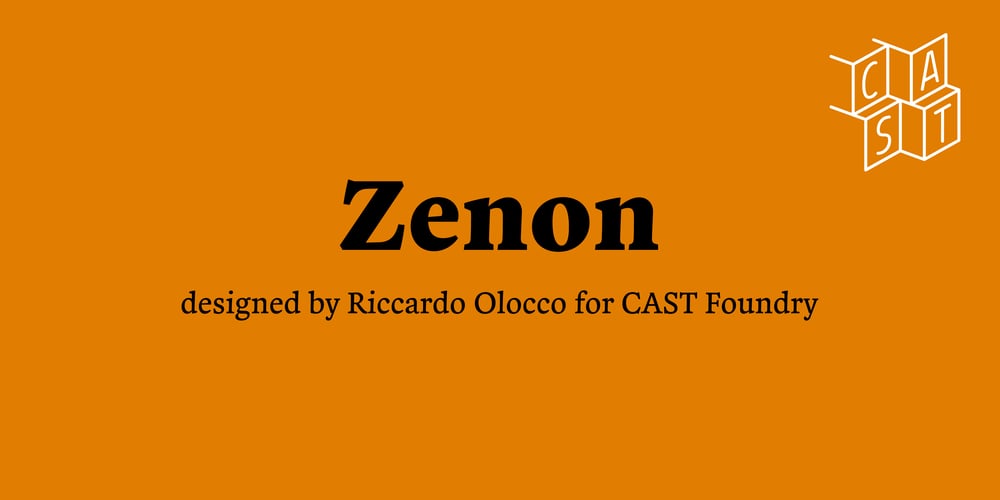
Zenon Font Family was designed by Riccardo Olocco and published by CAST. Zenon contains 8 styles and family package options. Zenon is a compact text font in four weights. Zenon is a sum of different styles, from Francesco Griffo to Granjon, from modern typefaces to the first sketches of Times New Roman. Zenon is an apparently Renaissance revival with modernish proportions. A closer look reveals that it is a typographic potpourri.Zenon was design as part of the MATD program at the University of Reading.